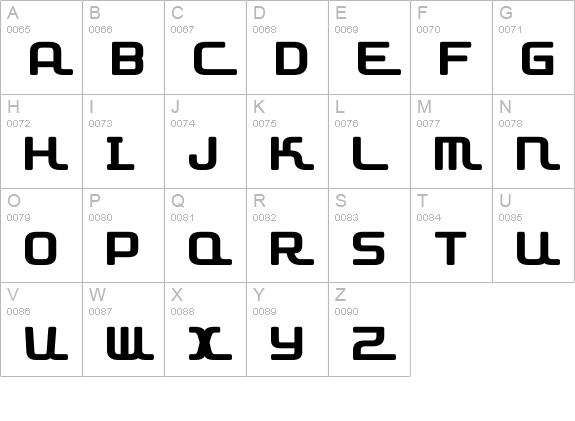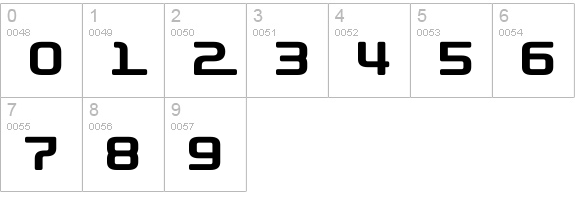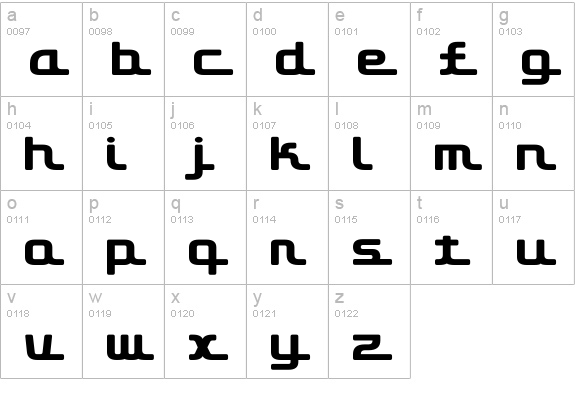
D3 Roadsterism Font Details
Introducing the captivating and dynamic D3 Roadsterism font, a true masterpiece in the world of typography. This font is a perfect fusion of elegance and modernity, making it the ultimate choice for those seeking a bold and impactful design. D3 Roadsterism font showcases an exquisite balance between sleek lines and sharp edges, creating a visually striking effect that is sure to capture attention. Its meticulously crafted letterforms exude confidence and sophistication, making it an ideal choice for advertising campaigns, branding projects, and headline designs. One of the most remarkable aspects of D3 Roadsterism font is its versatility. Whether you're looking to create a sleek and futuristic design or an edgy and urban look, this font has got you covered. Its wide range of characters and ligatures allows for seamless integration into any design concept, ensuring a cohesive and visually stunning final result. But what sets D3 Roadsterism font apart from the rest is its accessibility. The creators of this remarkable font believe that artistic expression should be free and readily available to all designers. That's why D3 Roadsterism font can be freely downloaded at FontsMarket.com, allowing designers from all walks of life to unleash their creativity without any barriers. With its bold presence, impeccable craftsmanship, and the added bonus of being freely accessible, D3 Roadsterism font is a must-have for any design enthusiast. Elevate your projects to new heights with this remarkable font, and let your creativity shine through. Experience the power of D3 Roadsterism font today, and witness the magic it brings to your designs.